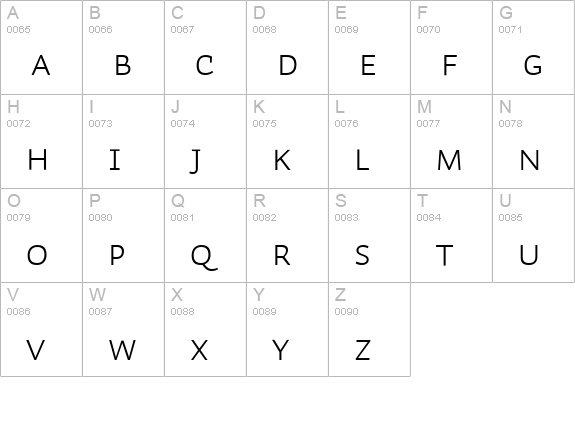
Auto 1 Light SmCp Font Details
Auto 1 Light SmCp is a refined, elegant variant in the Auto typeface family \xE2\x80\x94 well suited to elegant body text, refined sub-headings, and luxury branding.
Auto 1 Light SmCp font is a sleek and modern typeface that exudes sophistication and elegance. Its clean lines and subtle curves make it perfect for a wide range of design projects, from branding materials to digital content. This versatile font is ideal for conveying a sense of professionalism and style. The best part? Auto 1 Light SmCp font is completely free to download at FontsMarket.com. Whether you're a designer looking to add a touch of class to your work or a business owner in need of a fresh new look for your brand, this font is sure to impress. With its timeless appeal and effortless charm, Auto 1 Light SmCp font is a must-have for anyone looking to elevate their design projects.